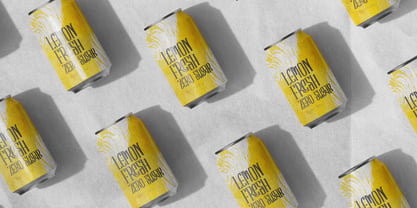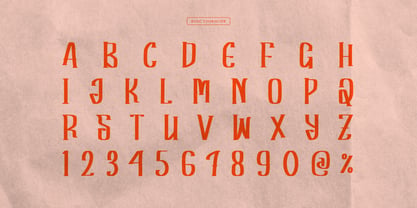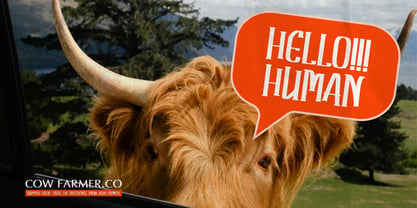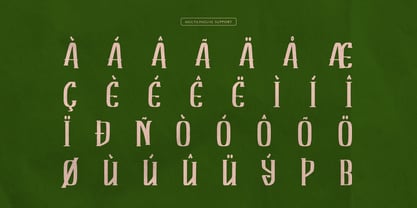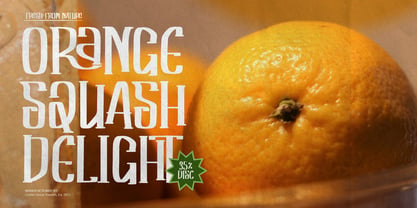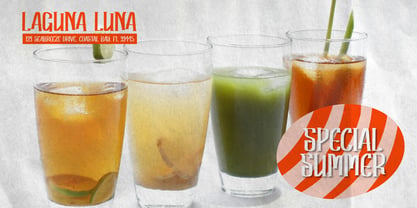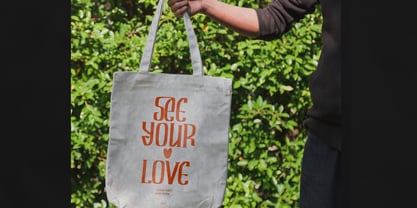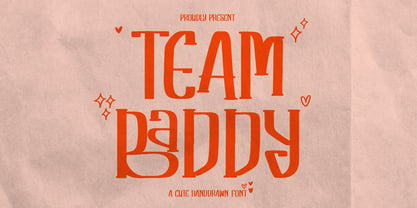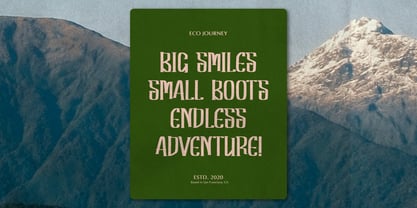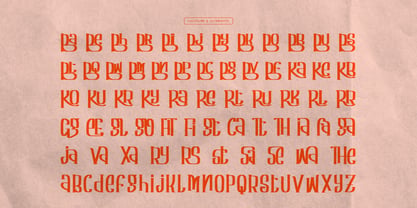
Team Baddy
Team Baddy | Cute Hand Drawn, from Gracetypestudio, suitable for any projects such as: logos, branding projects, homeware designs, product packaging, mugs, quotes, posters, shopping bags, t-shirts, book covers, name card, invitation cards, greeting cards, label, photography, watermark, special events, and all your other lovely projects that need a Cute Hand Drawn taste.
• Regular and Italic
• Alternate and Ligature